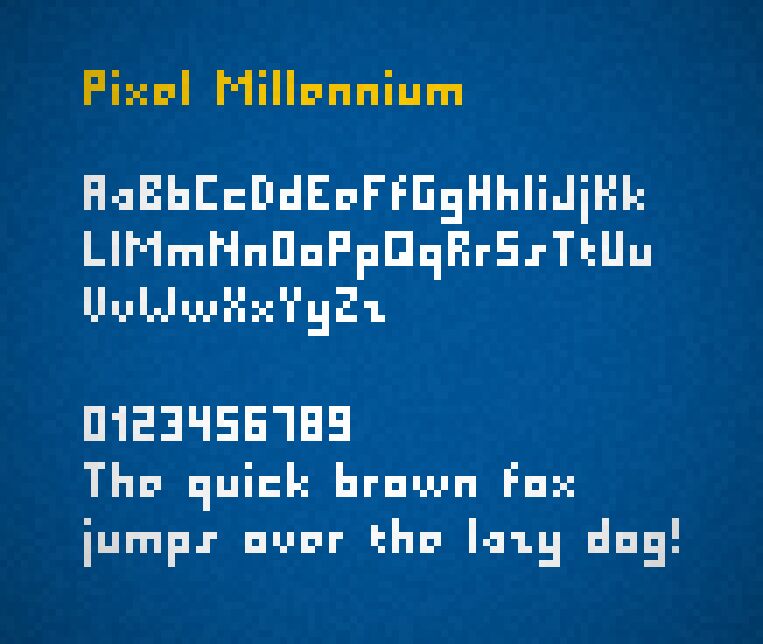
Pixel Millennium by Zdenek Gromnica is a free heavy pixel font with the stark silhouette of an early digital display. Tall square forms alternate with broad crosspieces and deep rectangular openings, giving the lettering an unusually dense architectural profile, with abrupt cut-ins creating a deliberately unstable pattern across the line. Several letters are dramatically wider than their neighbors.
Technology and arcade themes suit its severe electronic character, making it useful for game title cards, futuristic posters, music packaging, and event graphics. It is most convincing in entertainment graphics that want lettering to resemble a machine interface rather than a neutral typeface.